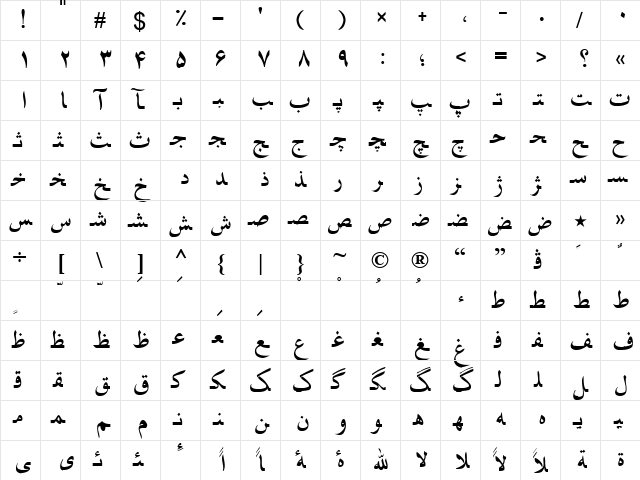
Farsi 1.1 Normal Font Preview
Farsi 1.1 Normal
Farsi 1.1 Normal Font Details
Design Context for Farsi 1.1 Typeface
Farsi 1.1 takes a measured approach to typography — its balanced proportions and neutral character make it a reliable workhorse for both digital and print work.